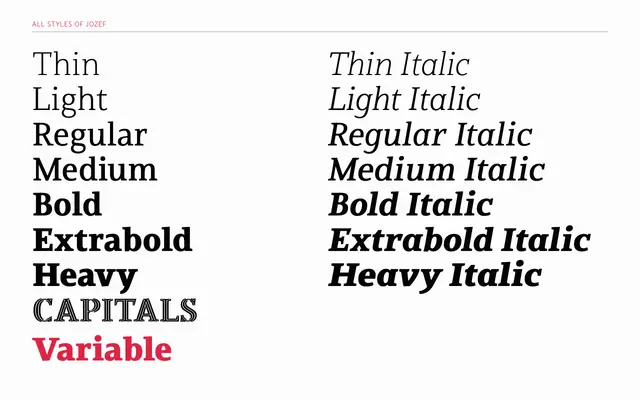
A seven-weight grotesque with a dedicated Capitals subfamily, sharp forms and broad Latin language coverage across more than 300 languages.
Jozef offers seven weights from Thin to Heavy, each with a matching italic, plus a standalone Capitals cut suited to display and titling work. The family is built for clarity at large sizes, with sharp edges that give it a directness uncommon in softer grotesques. Language support is unusually wide, covering hundreds of Latin-script languages across Africa, the Pacific and the Americas, backed by a full OpenType feature set including oldstyle figures, fractions and scientific inferiors.
The page copy emphasises sharp edges and a hard, clear voice, consistent with a geometric or neo-grotesque sans. The upright Capitals subfamily and strong weight range reinforce a display-capable grotesque character.